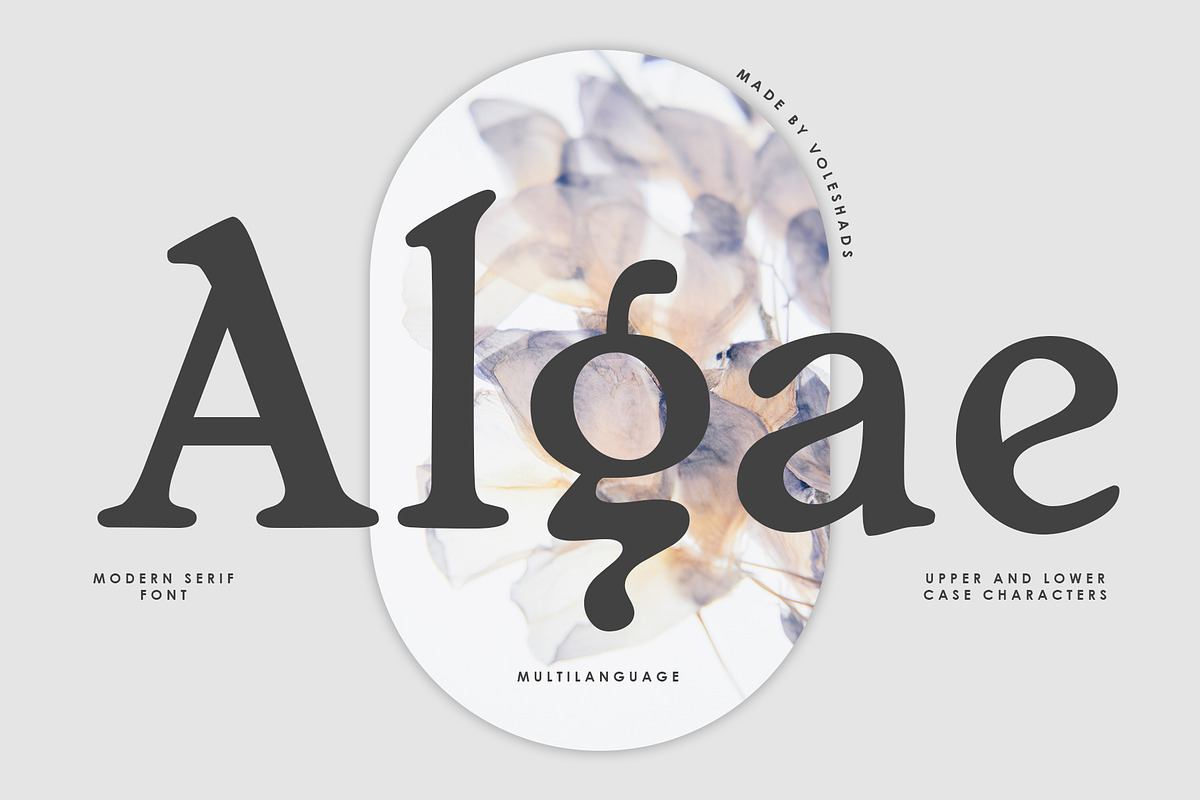
Algae Modern Serif Font Free Download
Algae Modern Serif Font Free Download is an elegant and contemporary typeface that combines classic serif elements with modern design sensibilities. Its high contrast between thick and thin strokes, along with subtle curves and sharp edges, makes it ideal for luxury branding, editorial design, and high-end product packaging. The font's sophisticated appearance ensures that your projects exude professionalism and style.
Designed to be versatile, Algae works beautifully in both headlines and body text, offering a refined aesthetic that enhances readability while adding a touch of class. Its balanced proportions and distinctive character shapes make it a valuable addition to any designer's toolkit.
Experience the refined elegance of Algae Modern Serif Font Free Download in your personal projects. Its timeless design and modern flair will elevate your creations, providing a sophisticated and polished look.